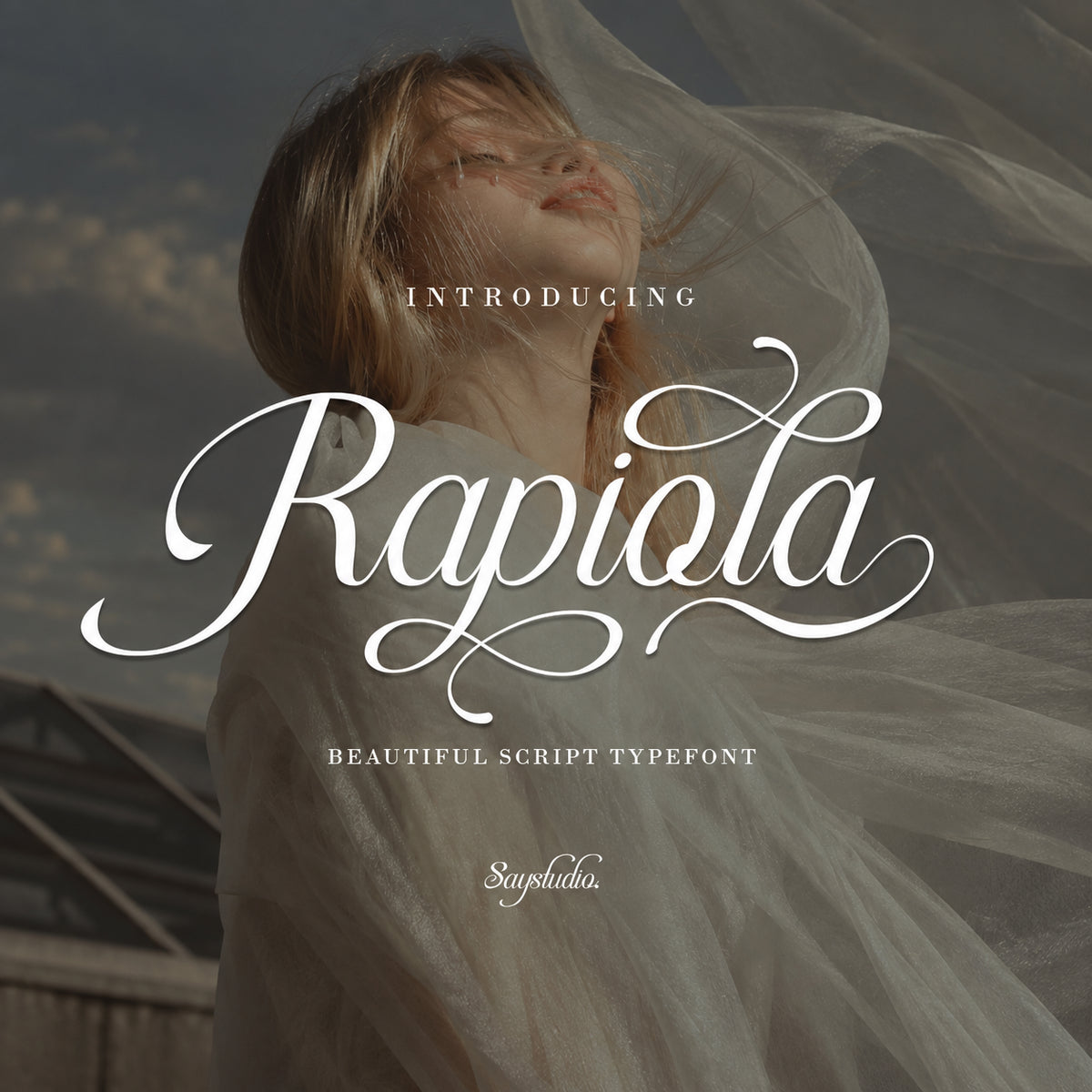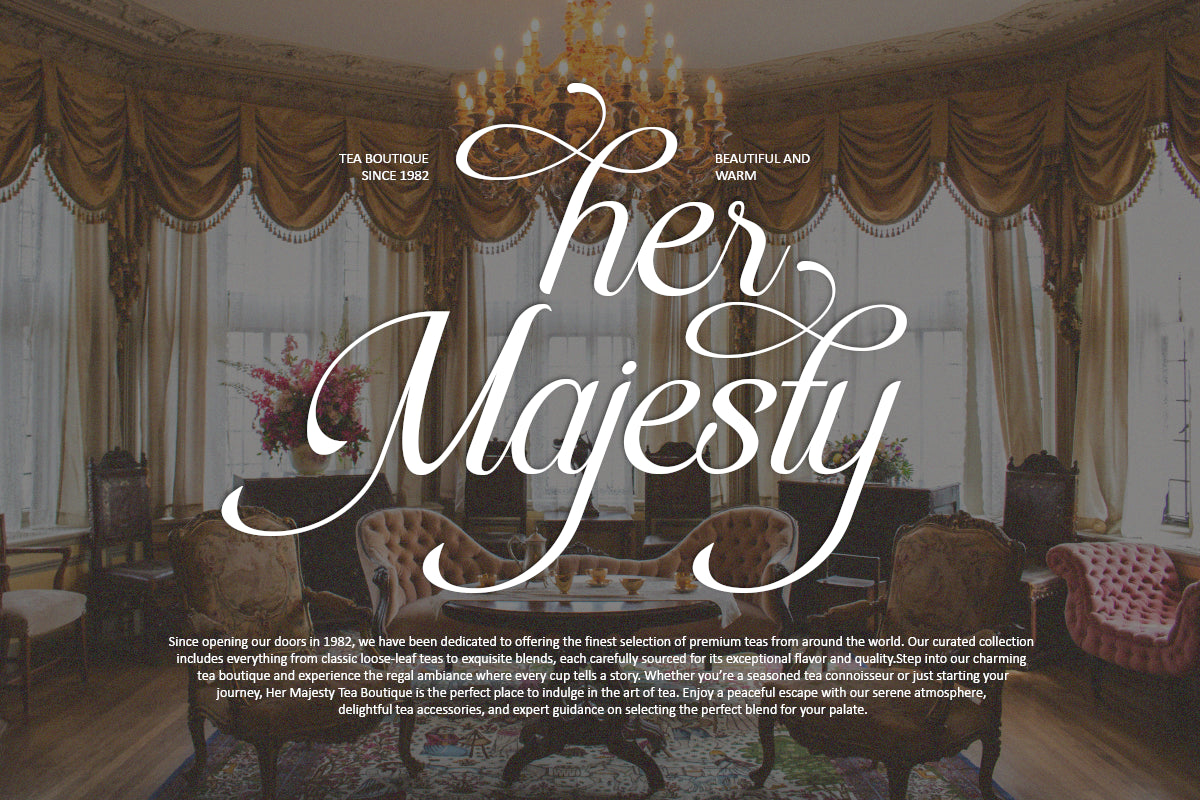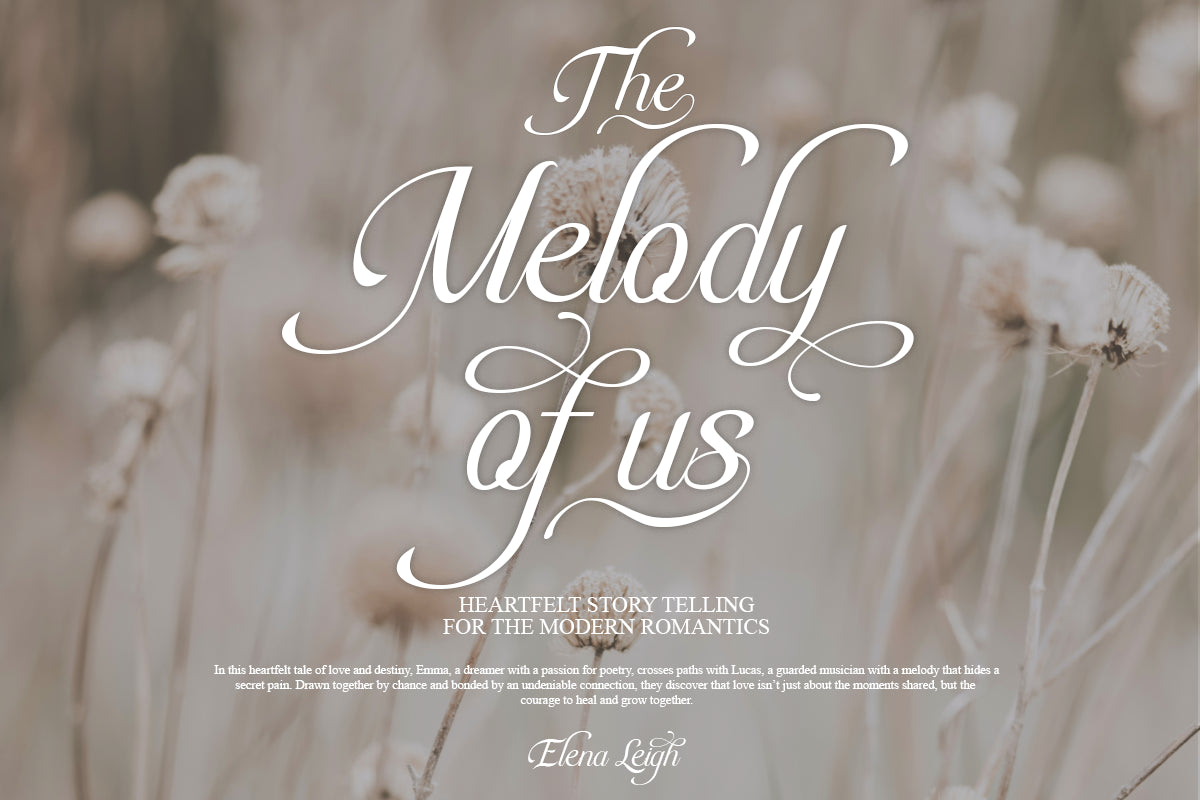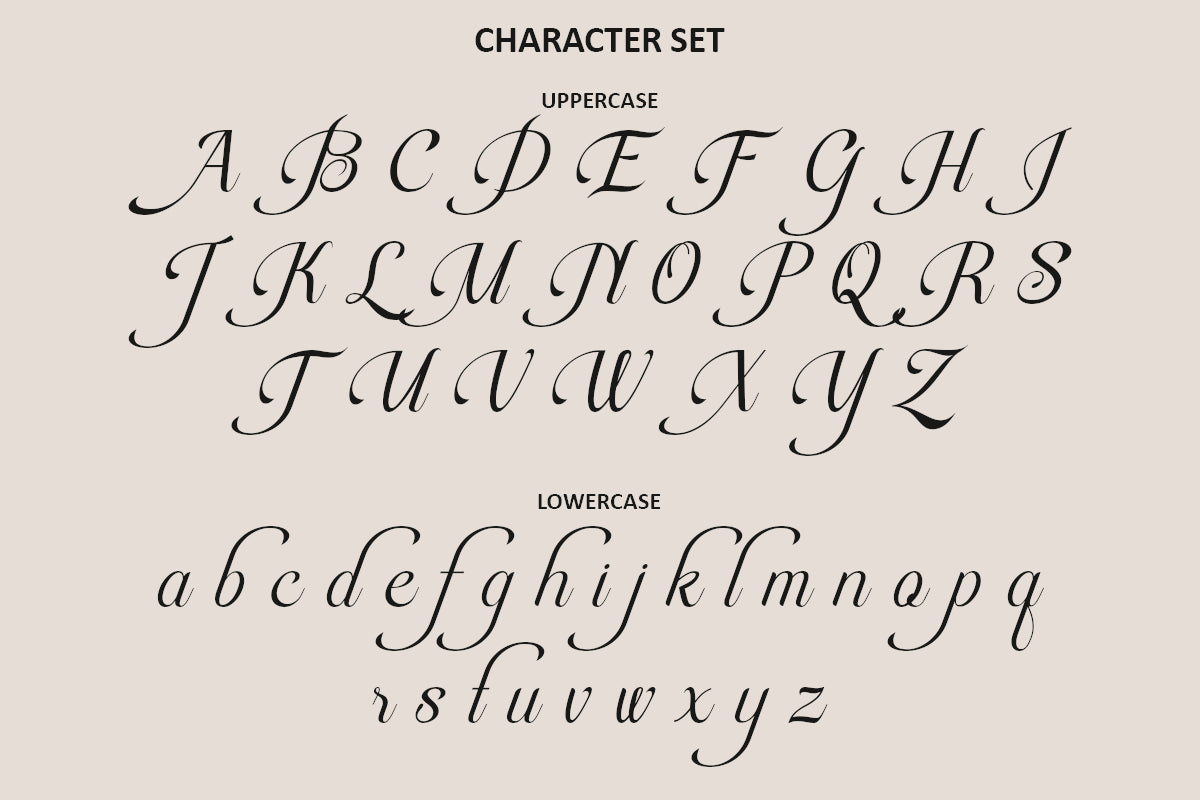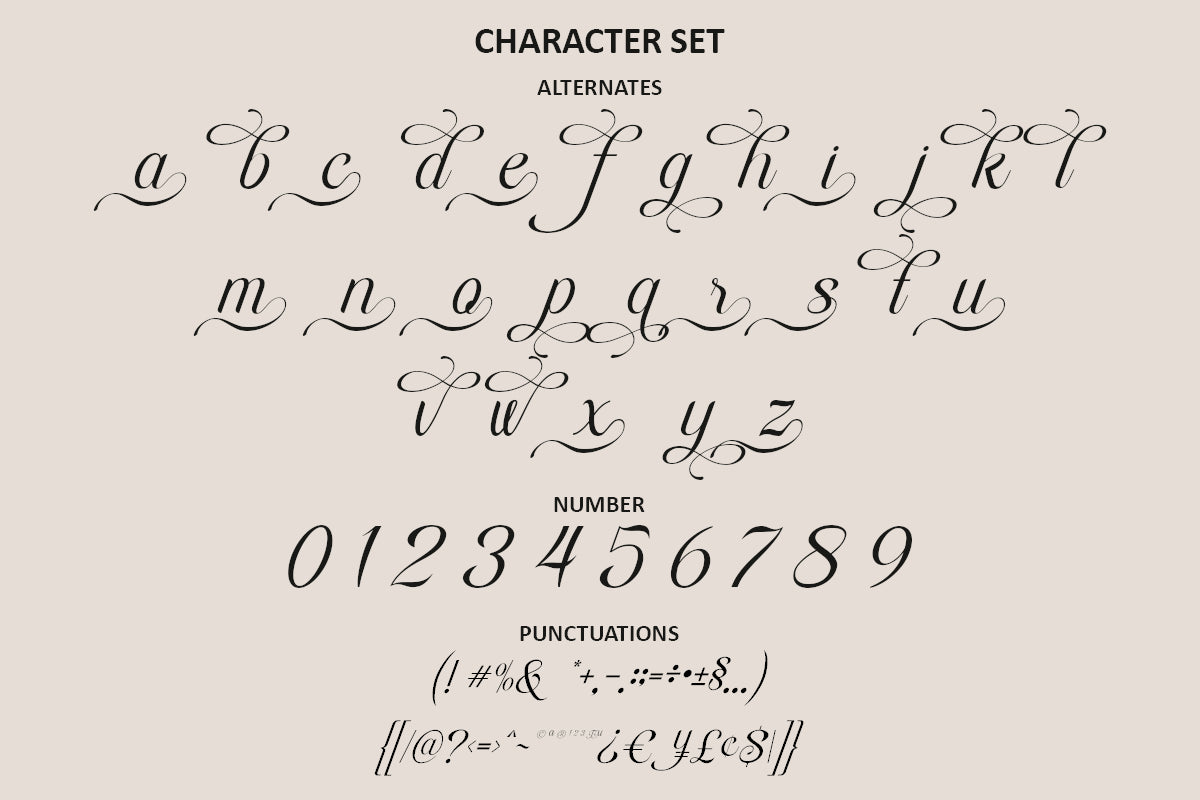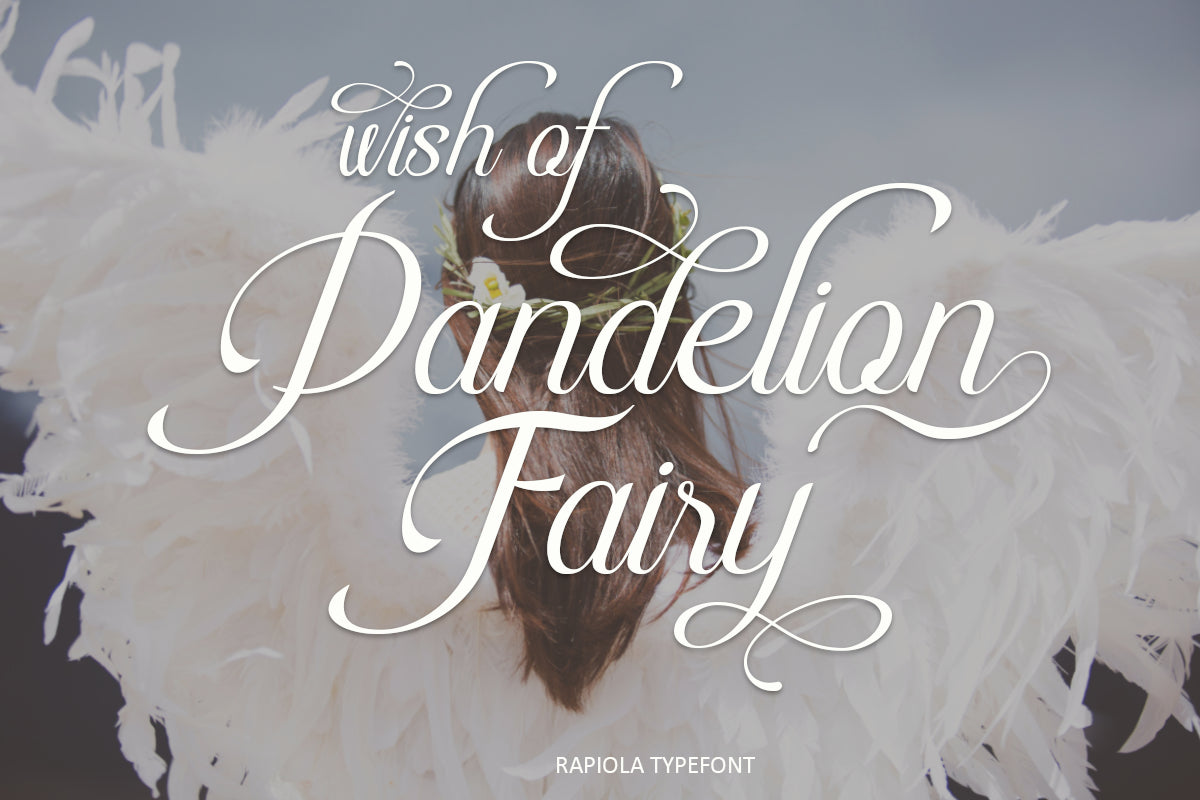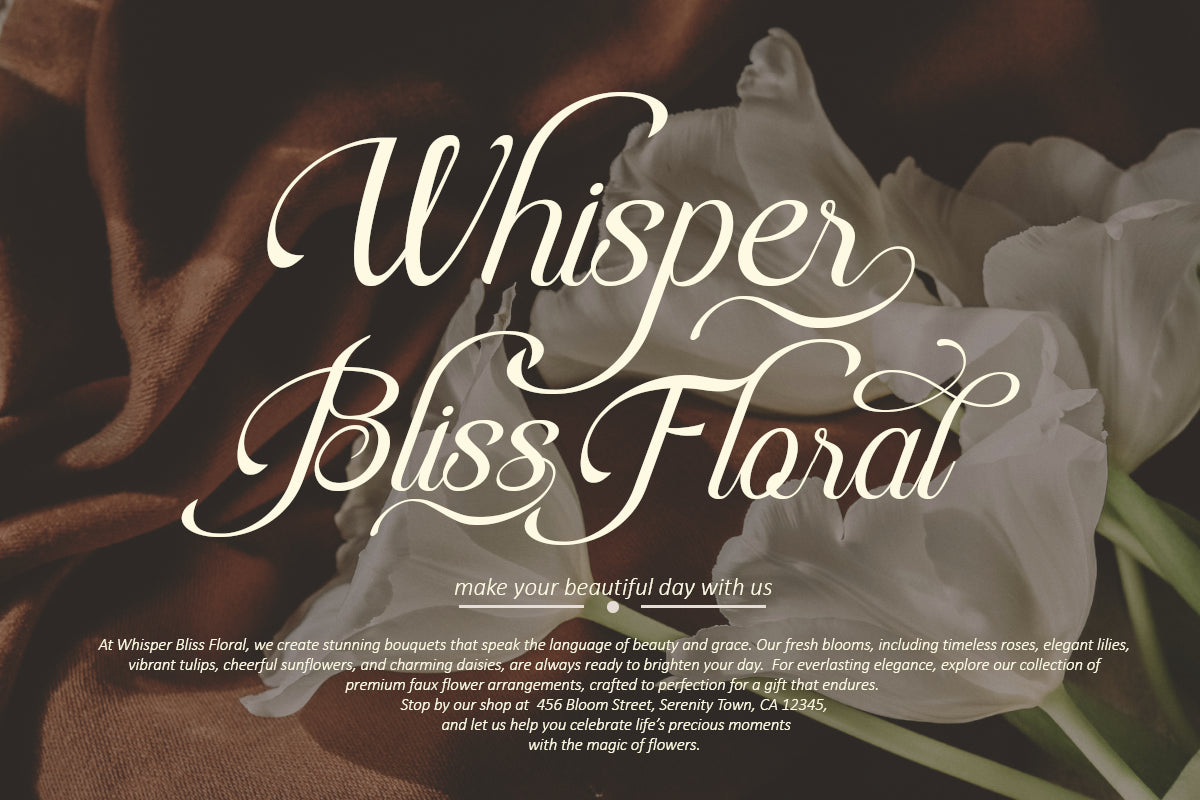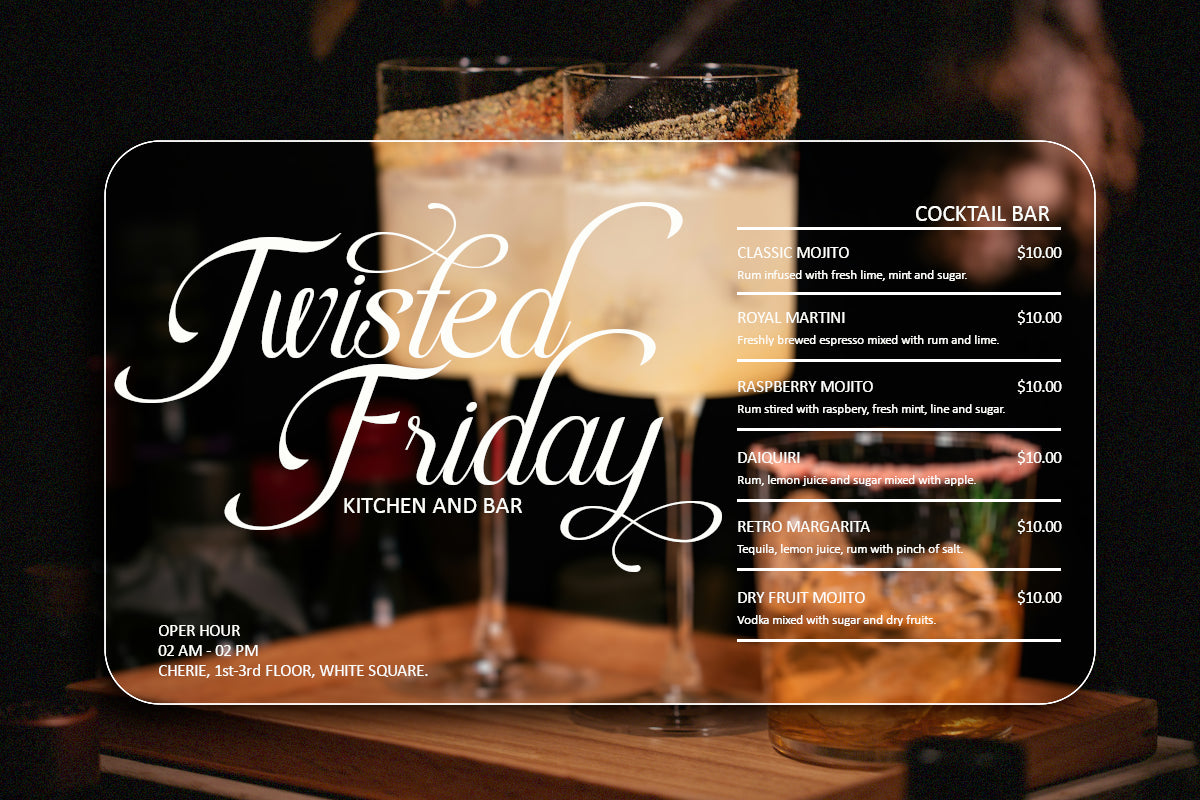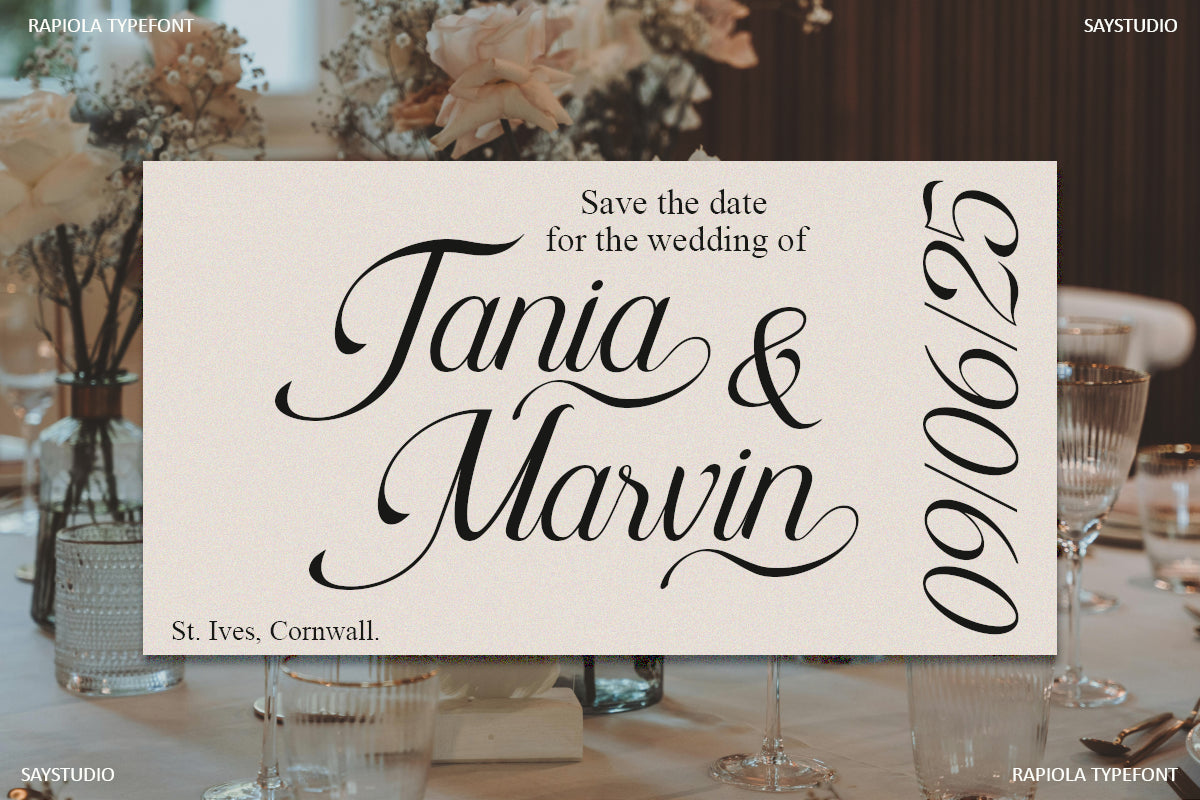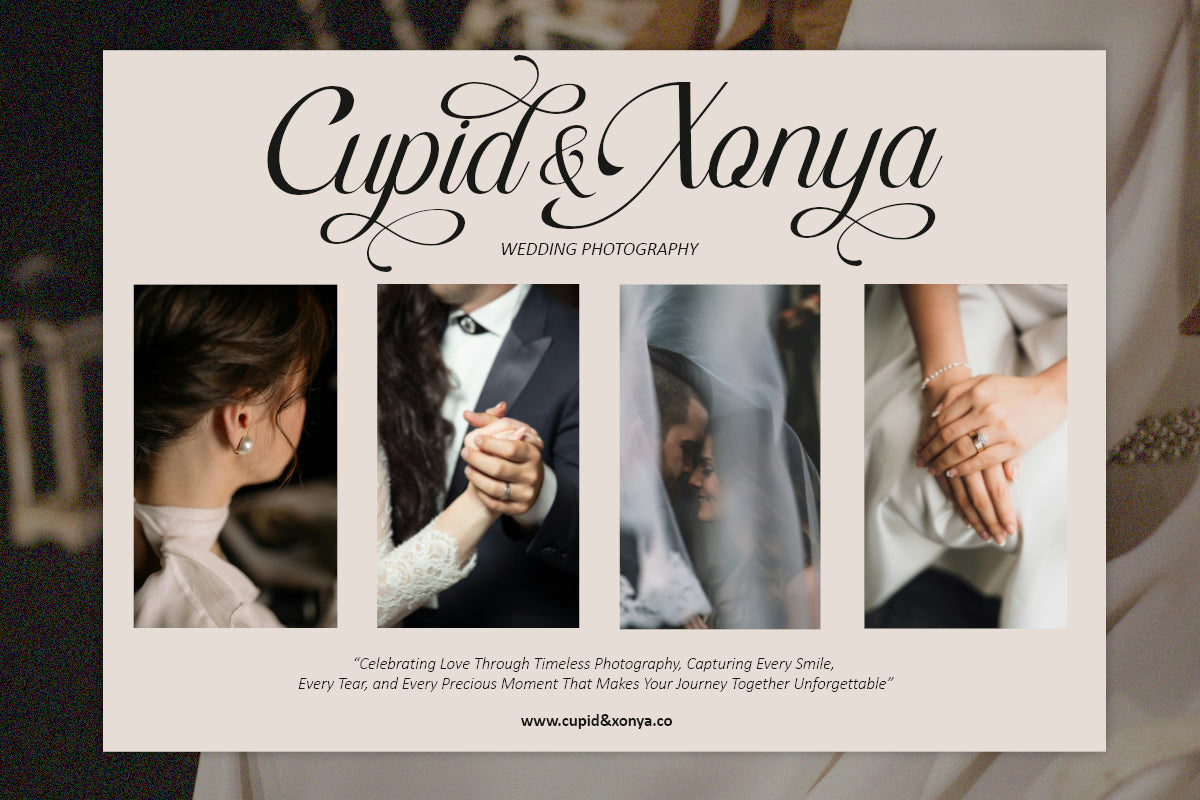
Rapiola – Elegant Script Font | Calligraphy & Wedding Font
Rapiola is a beautiful and elegant script typeface featuring graceful curves, flowing letterforms, and stylish swashes. Its sophisticated and romantic character makes it perfect for projects that need a refined, feminine, and luxurious touch.
Perfect for wedding invitations, logos, branding, stationery, fashion designs, quotes, greeting cards, packaging, social media, and editorial projects. Rapiola combines expressive handwritten elegance with decorative flourishes to create stunning headlines and personalized designs.
• Special Beauty Alternates
• Uppercase and Lowercase
• Number, Symbol, and Punctuation
• Multilingul Support
Rapiola is a script typeface with flowing letterforms, swashes, and beauty alternates, including uppercase and lowercase characters, numbers, symbols, punctuation, and multilingual support. It is available in OTF, TTF, and WOFF formats.